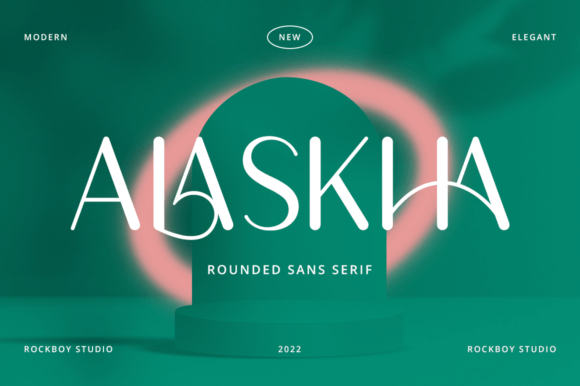
The Alaskha Font: Elevate Your Designs with Elegance and Modernity
Have you ever been in the middle of a design project, and suddenly, you’re stuck on finding the perfect font? I recall a recent experience where I was working on a branding project for a luxury travel company. The client wanted a font that exuded elegance, sophistication, and a touch of adventure. After hours of scouring through font libraries, I stumbled upon the Alaskha font. It was love at first sight! ✨
The Alaskha font is an elegant and modern sans serif font that has quickly become a staple in my design toolkit. Its clean lines, precise curves, and versatile style make it an excellent choice for a wide range of projects. In this article, I’ll share my honest review of the Alaskha font, provide a practical guide on how to use it, and explore similar fonts that you might enjoy.
• ✅ Elegant and modern sans serif design
• ✅ Highly versatile and adaptable to various projects
• ✅ Clean lines and precise curves for optimal readability
• ✅ Extensive OpenType features and glyphs for creative freedom
• ⚠️ Limited availability of certain stylistic alternates in some applications
• ⚠️ May require manual kerning for optimal spacing in certain situations
The Story Behind Alaskha
The Alaskha font was designed with the goal of creating a versatile and elegant sans serif font that could be used in a wide range of applications. Inspired by the natural beauty of Alaska, the font’s creator aimed to capture the essence of the state’s rugged landscape and translate it into a clean, modern design.
Font Name Alaskha Font
Author RockboyStudio
Q: What type of projects is the Alaskha font best suited for?
A: The Alaskha font is highly versatile and can be used for a wide range of projects, including branding, advertising, packaging, and digital design.
Q: Does the Alaskha font support OpenType features?
A: Yes, the Alaskha font supports OpenType features, including stylistic alternates, ligatures, and glyphs.